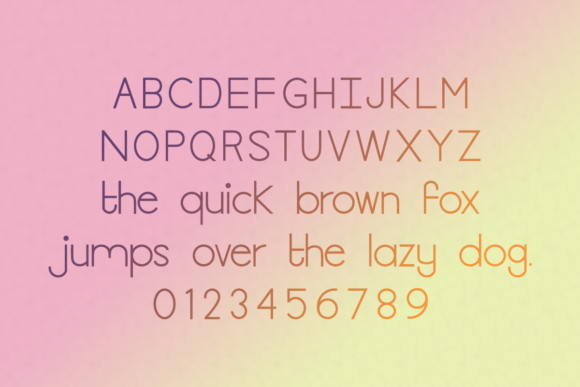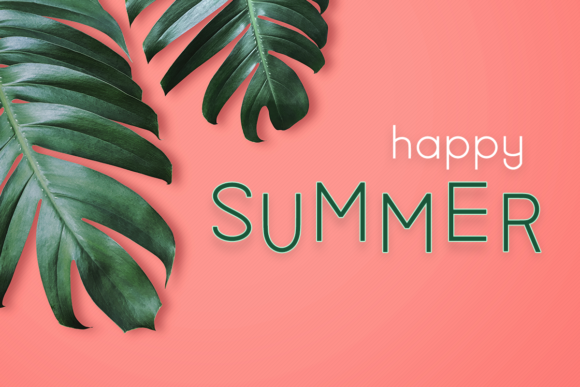
Introduction to Kill the Lights Font
Have you ever been working on a late-night creative project, pouring your heart and soul into every detail, only to realize that the perfect font is just out of reach? This is a feeling we’re sure many designers can relate to. But what if we told you that there’s a solution to this problem, a font that can elevate your design to the next level and leave a lasting impression?
Enter the Kill the Lights Font, a simple yet stylish sans serif typeface that’s sure to become a valuable addition to your design library. With its high-quality design and versatility, this font is the perfect resource for designers looking to take their creative projects to the next level.
Whether you’re working on a logo, a brochure, or a website, the Kill the Lights Font is a free download that’s sure to impress. Its transparent background and clean lines make it the perfect choice for any design project, and its high-quality design ensures that it will look great on any background.
Key Features of Kill the Lights Font
- High-quality, unique design suitable for creative projects, making it a valuable design resource.
- Designed to work well in various contexts, from digital to print media, making it a versatile design resource.
Honest Review: Kill the Lights Font
I recently stumbled upon the Kill the Lights Font, and I must say it’s been a game-changer for my creative projects. The font’s high quality and unique design make it a fantastic addition to any design resource.
Here are some aspects that I particularly appreciate about the Kill the Lights Font:
- ✨ Unique and creative design that stands out from the crowd
- ✨ High-quality glyphs that ensure crisp and clear text display
However, there are a few limitations that I’d like to point out:
- ⚠️ The font may not be suitable for all types of projects, especially those that require a more traditional or conservative design aesthetic
Overall, I’m thoroughly impressed with the Kill the Lights Font. Its unique design and high quality make it an excellent choice for designers looking to add some creativity to their projects. While it may have some limitations, the benefits far outweigh the drawbacks in my opinion.
When using the Kill the Lights Font, keep in mind that it’s ideal for creative projects that require a high-quality, unique font. This design resource is perfect for graphic designers, artists, and anyone looking to add a touch of creativity to their work. Some common use cases include: infographics, social media graphics, and promotional materials.